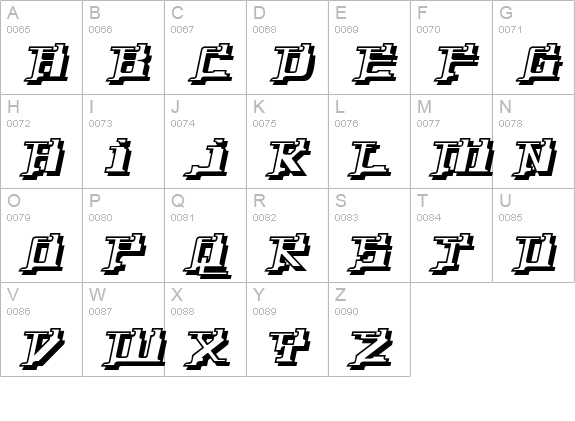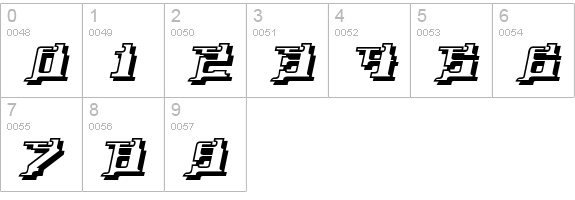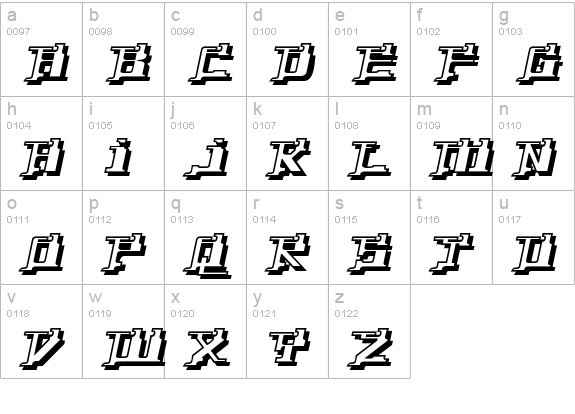
Yytrium Font Details
Yytrium font is a modern and stylish typeface that effortlessly combines elegance with a touch of creativity. Its sleek lines and unique curves make it perfect for a wide range of design projects, from branding to editorial. The versatility of Yytrium font allows it to be used in various contexts, adding a sophisticated flair to any design. The best part? Yytrium font is completely free to download at FontsMarket.com. This means you can easily access this stunning typeface and enhance your creative projects without any cost. Whether you're a graphic designer, web developer, or just someone looking to add a special touch to your documents, Yytrium font is the perfect choice. Don't miss out on this opportunity to elevate your designs with this beautiful and free font.